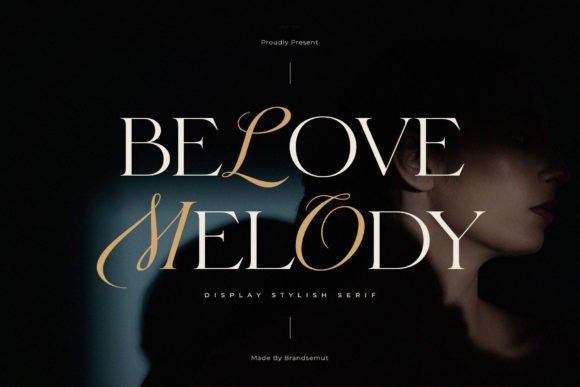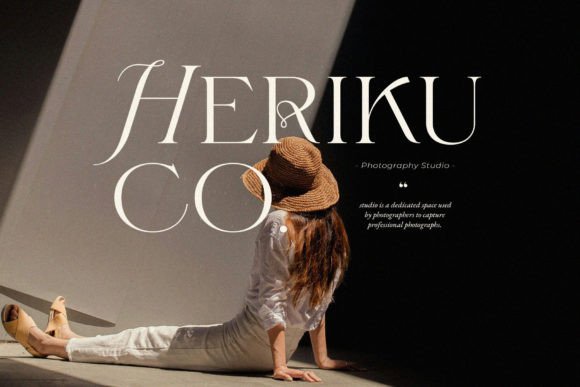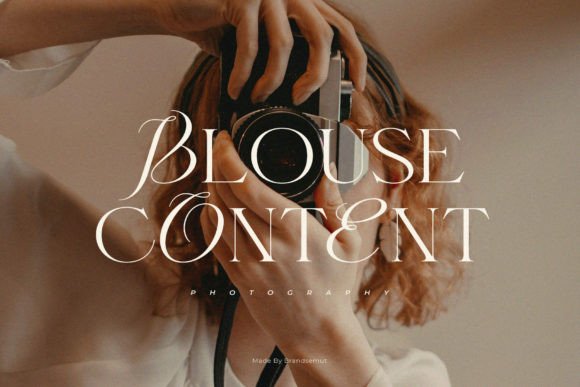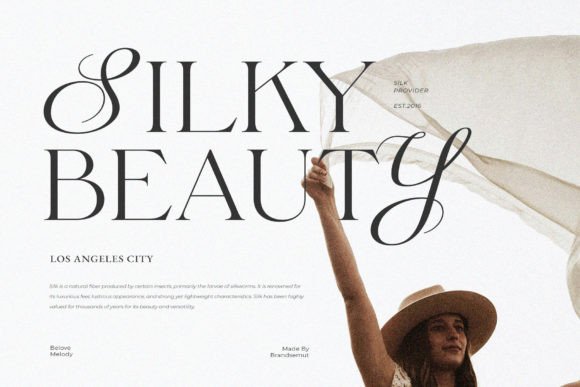
Belove Melody Font
About the Belove Melody Font
Experience the unique personality of Belove Melody Font, a font designed for impact. Belove Melody is a refined and sophisticated serif font exuding timeless elegance. Its graceful curves and sharp serifs evoke a sense of classical beauty, making it perfect for elegant branding, editorial design, and luxury packaging. With its versatility and charm, Belove Melody adds a touch of sophistication to any project.
Belove Melody thrives in applications requiring refined visual communication. Headlines, logos, and short-form text benefit greatly from its elegant serifs. It’s ideal for branding projects targeting a sophisticated clientele, particularly in the luxury goods, fashion, or publishing sectors. However, its elegance doesn’t translate well to body text or UI elements; its refined forms become less legible at smaller sizes and within dense layouts.
Pairing Belove Melody with a clean sans-serif like Montserrat or a geometric sans-serif like Futura creates a balanced contrast, allowing the serif’s elegance to stand out. For a warmer feel, consider pairing it with a script font like Great Vibes, but use it sparingly as an accent. Avoid pairing it with overly playful or informal fonts, as this will clash with its sophisticated personality.
The font projects a personality of timeless elegance and understated sophistication. It’s a versatile yet refined choice for conveying quality, tradition, and high-end aesthetic.